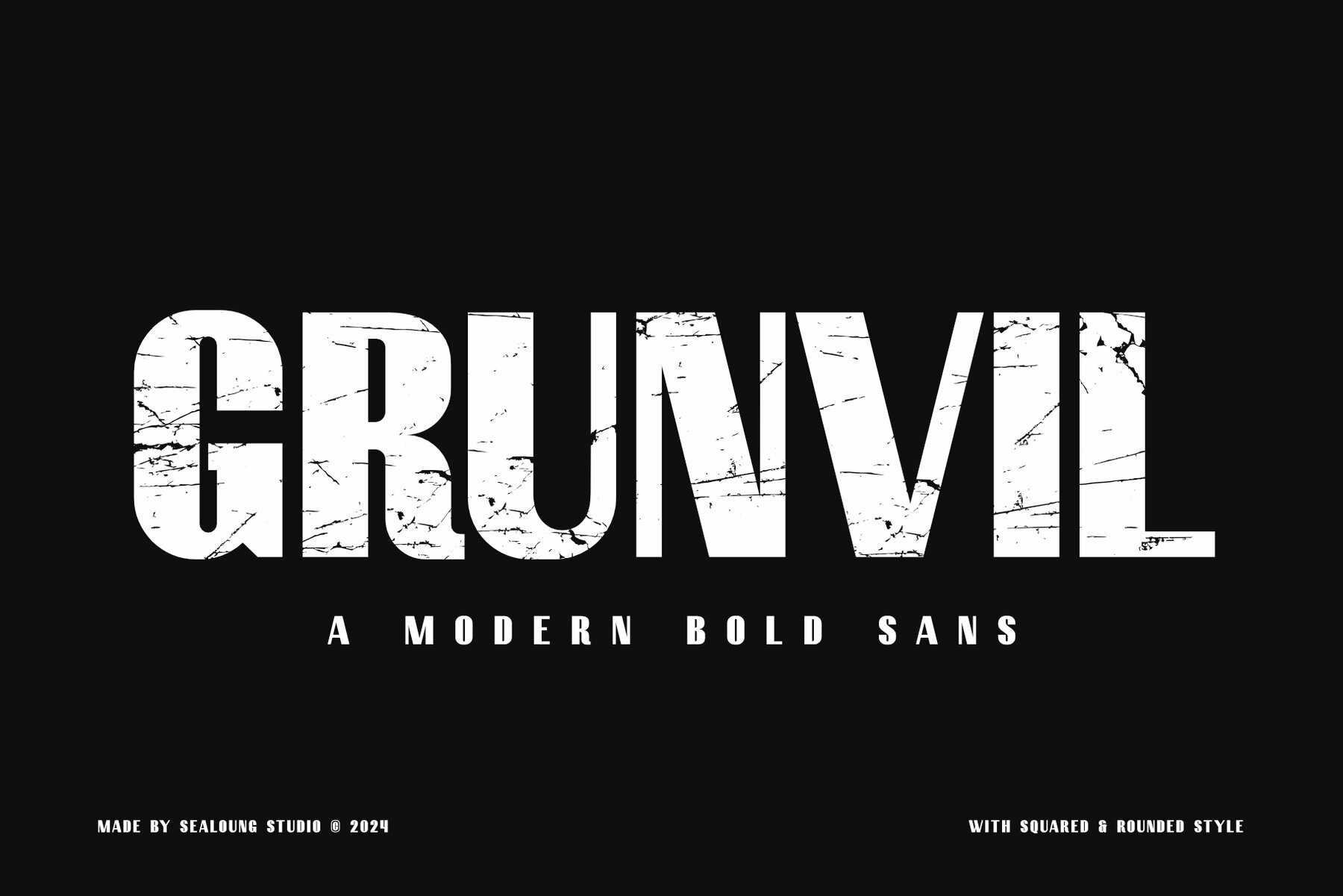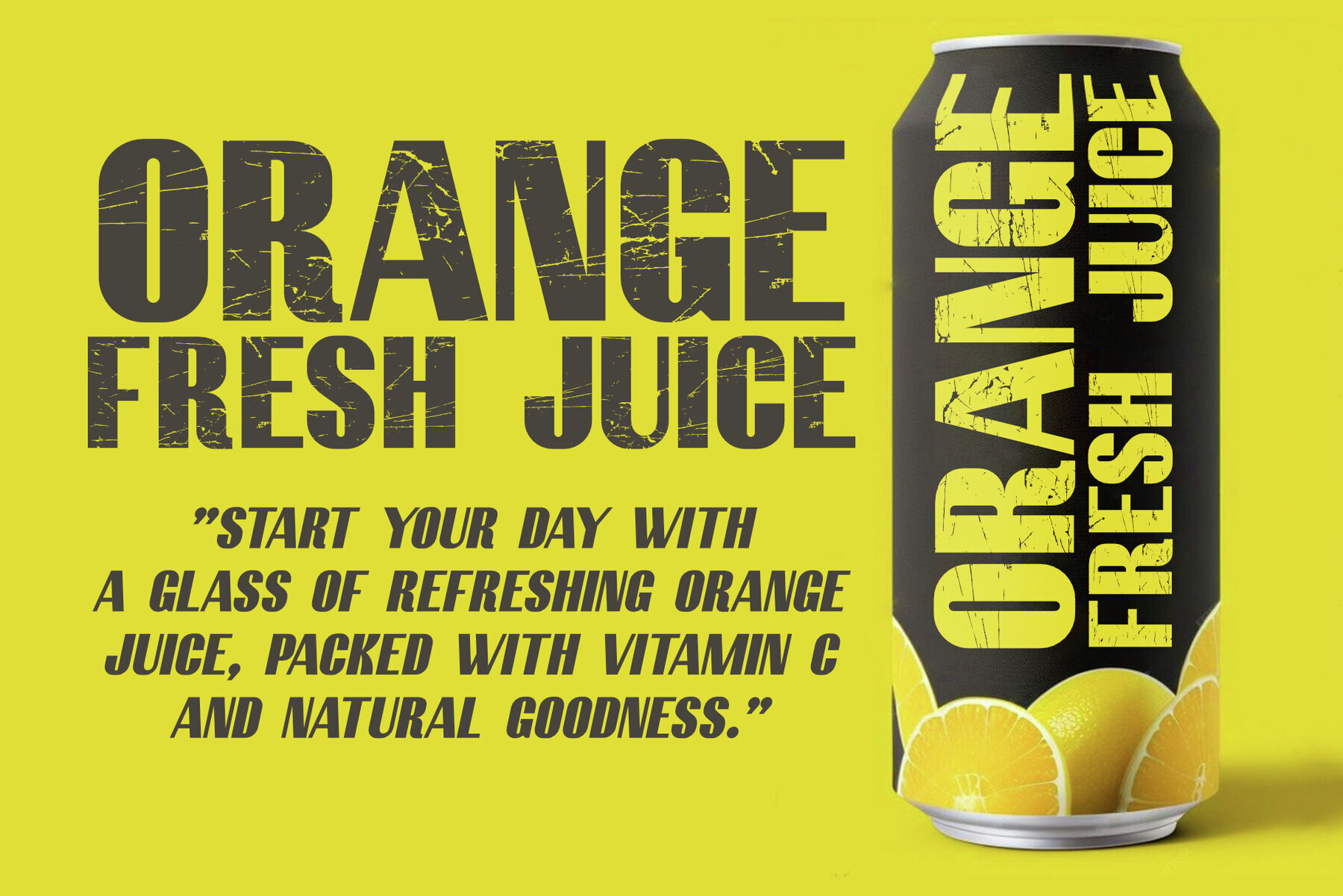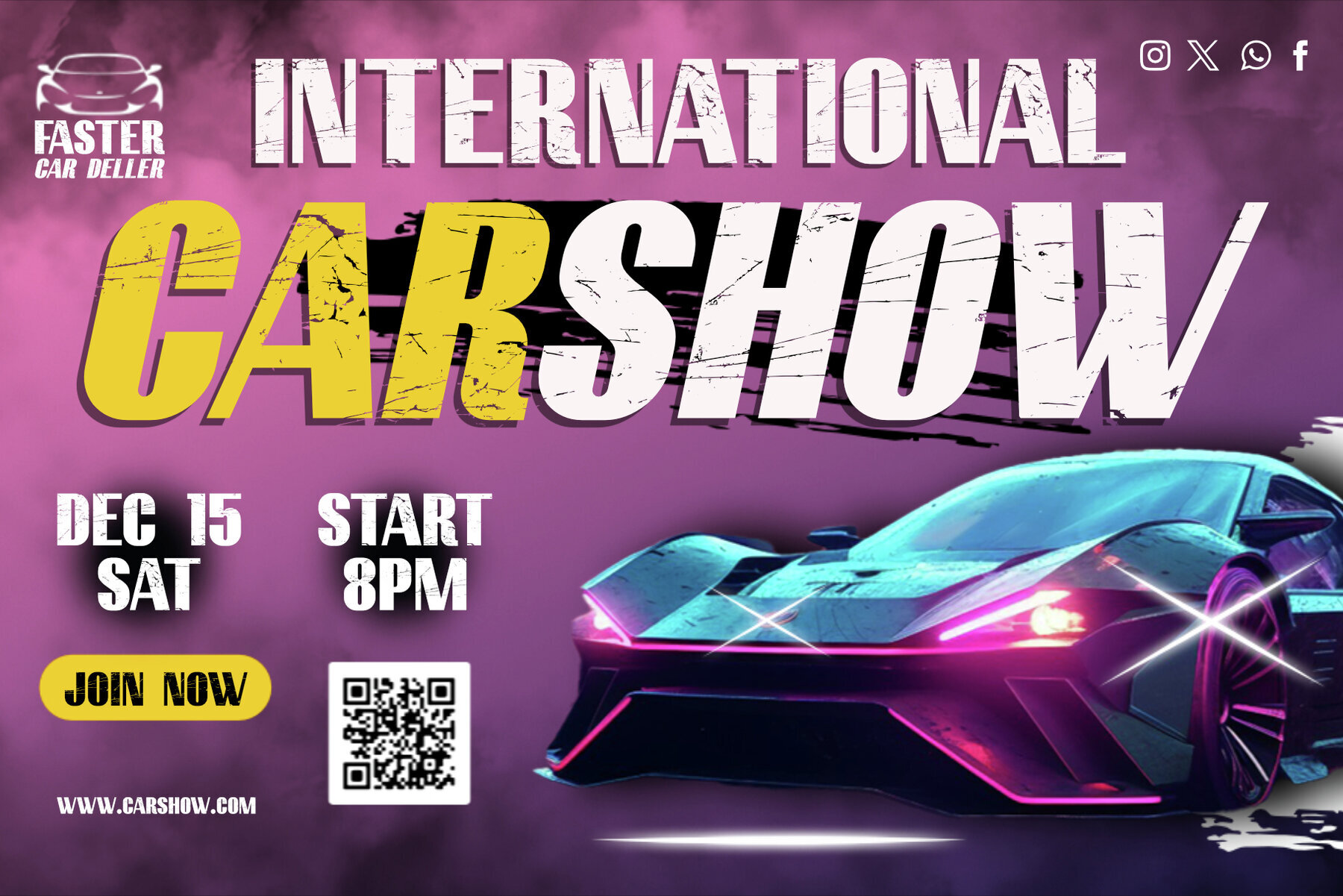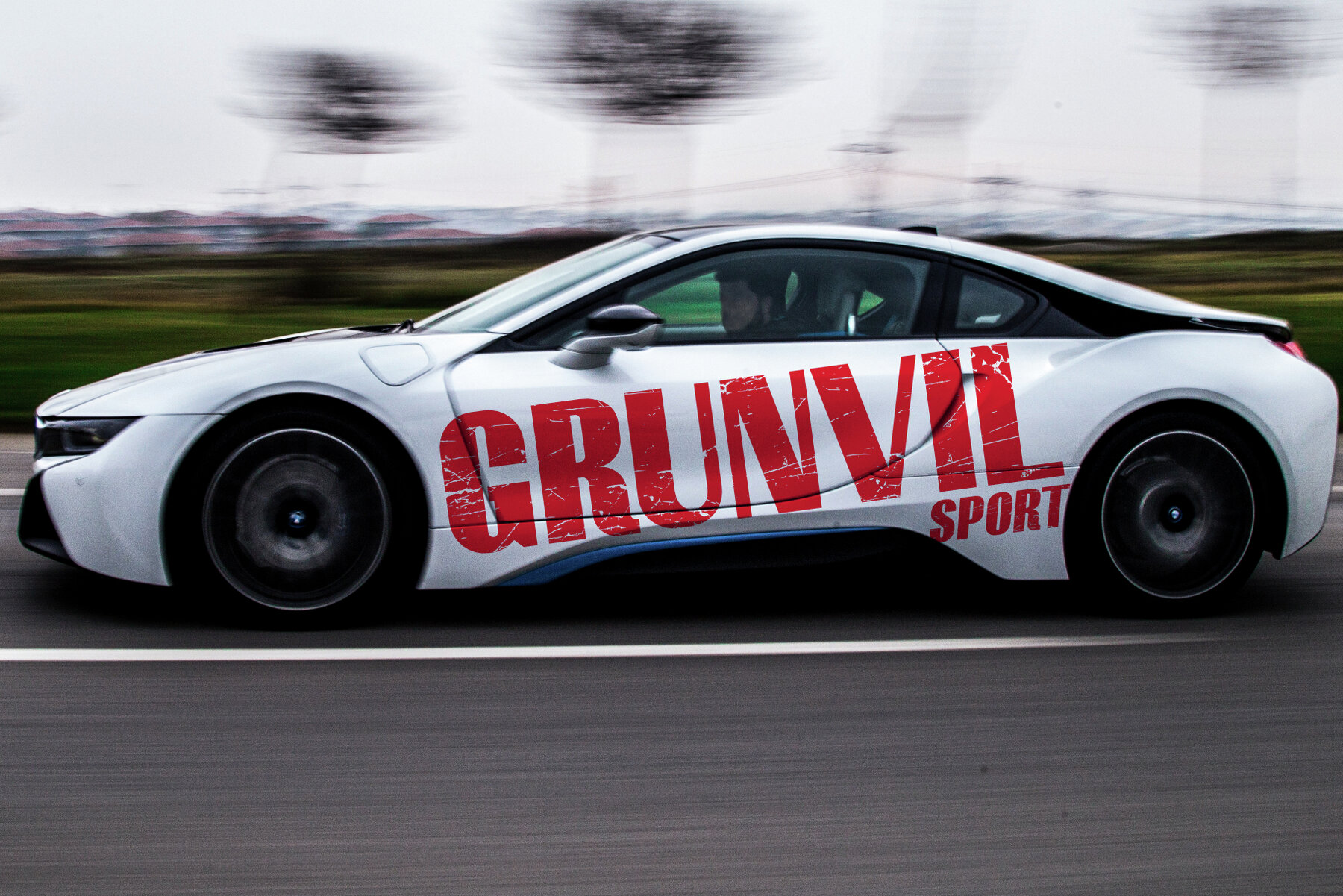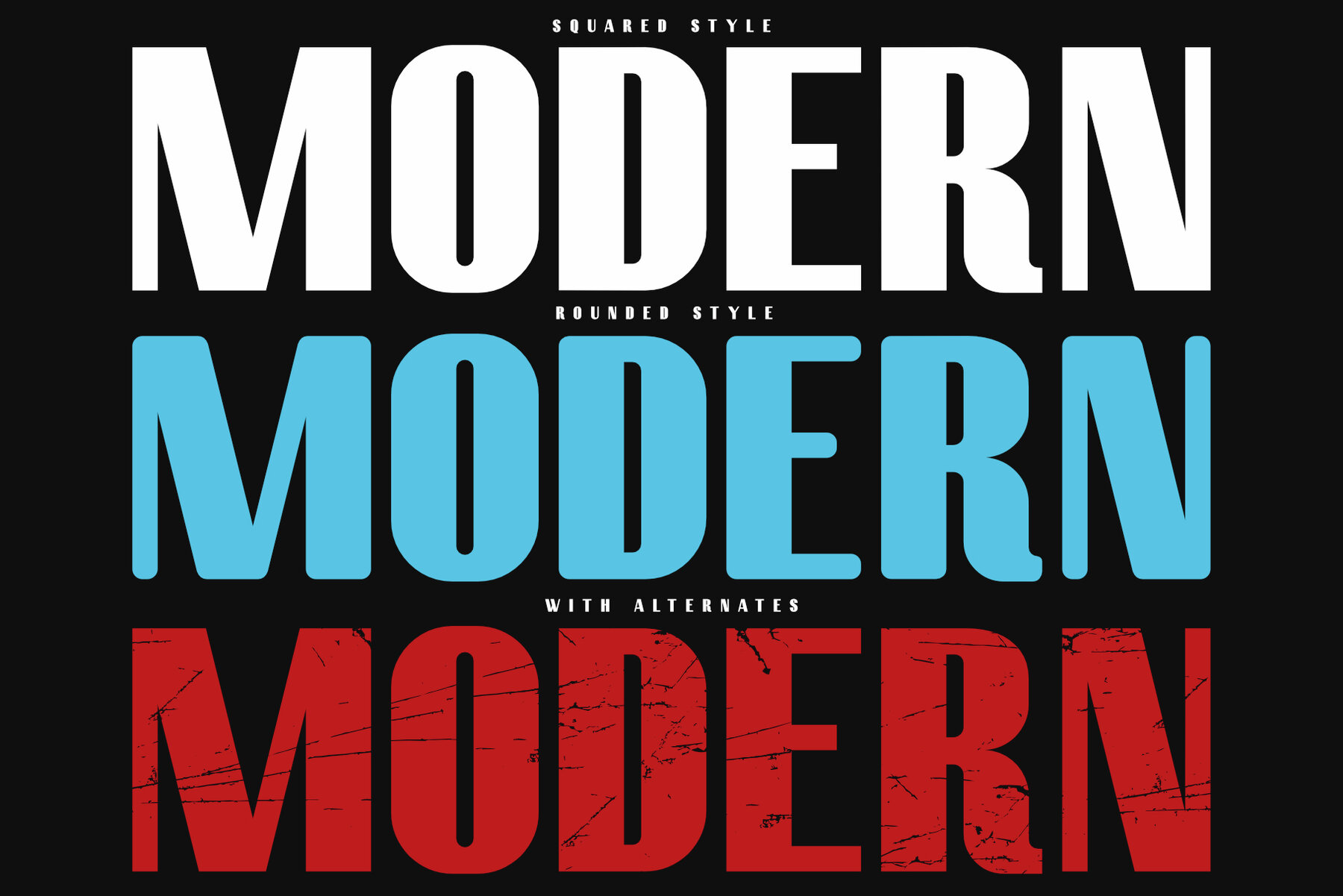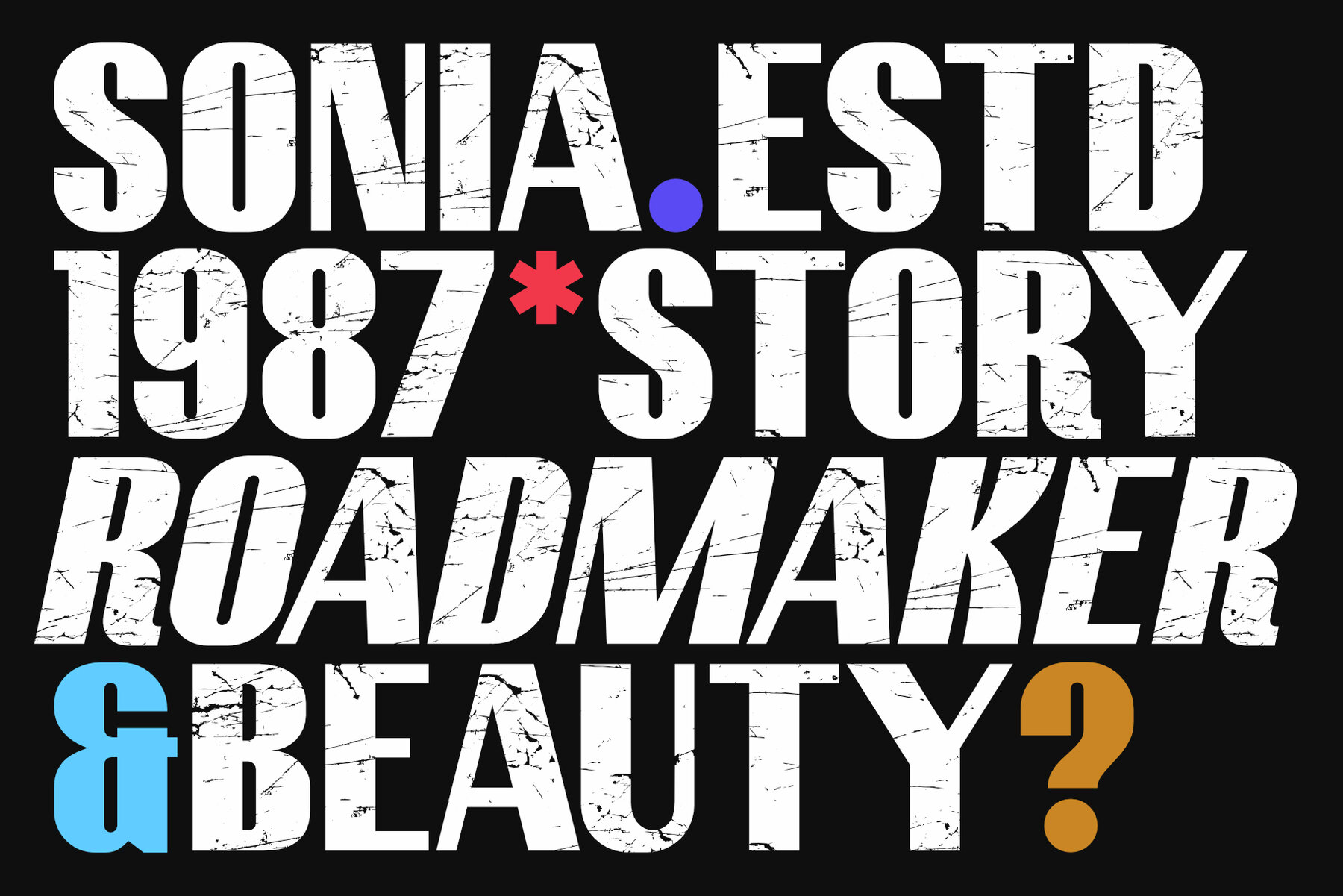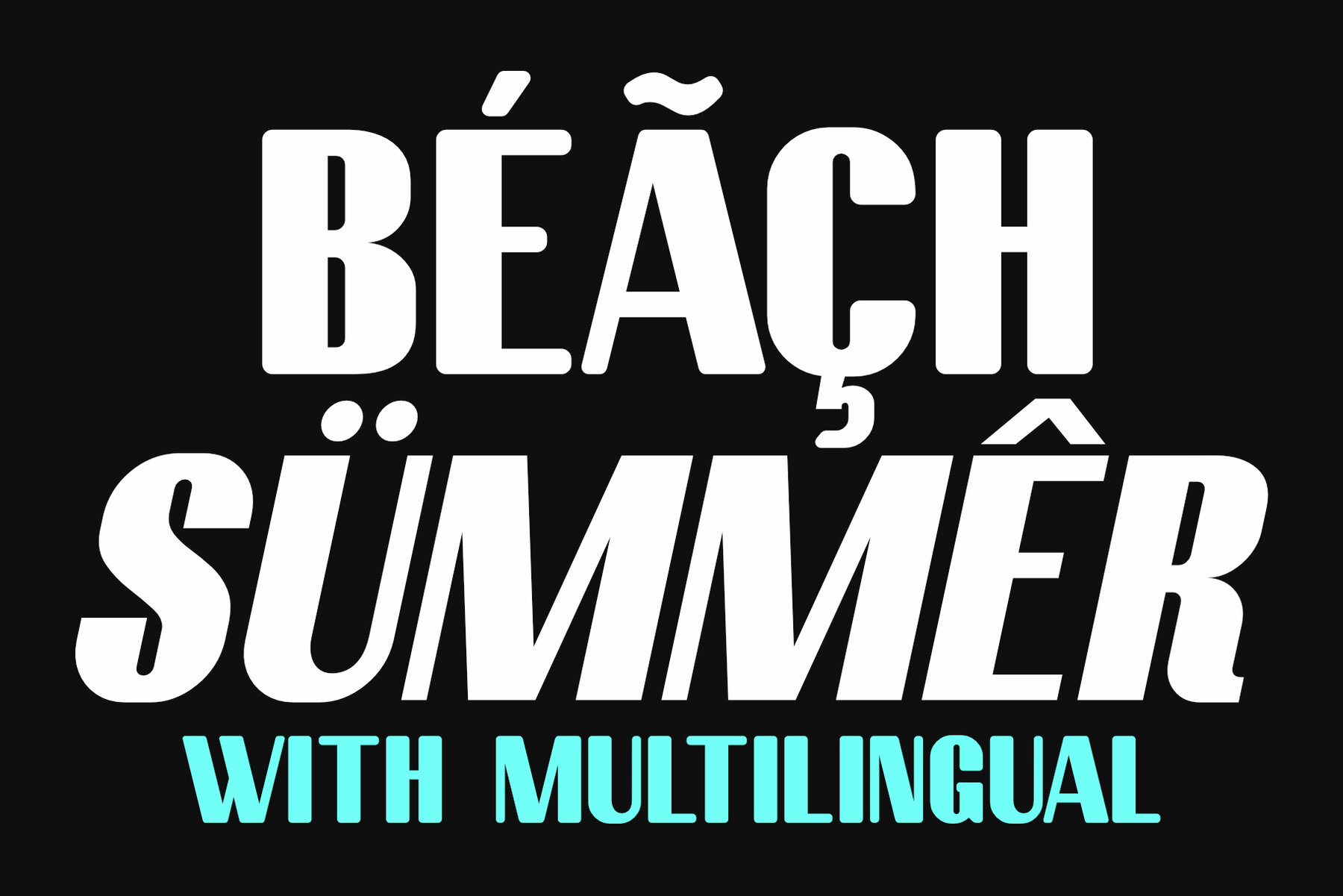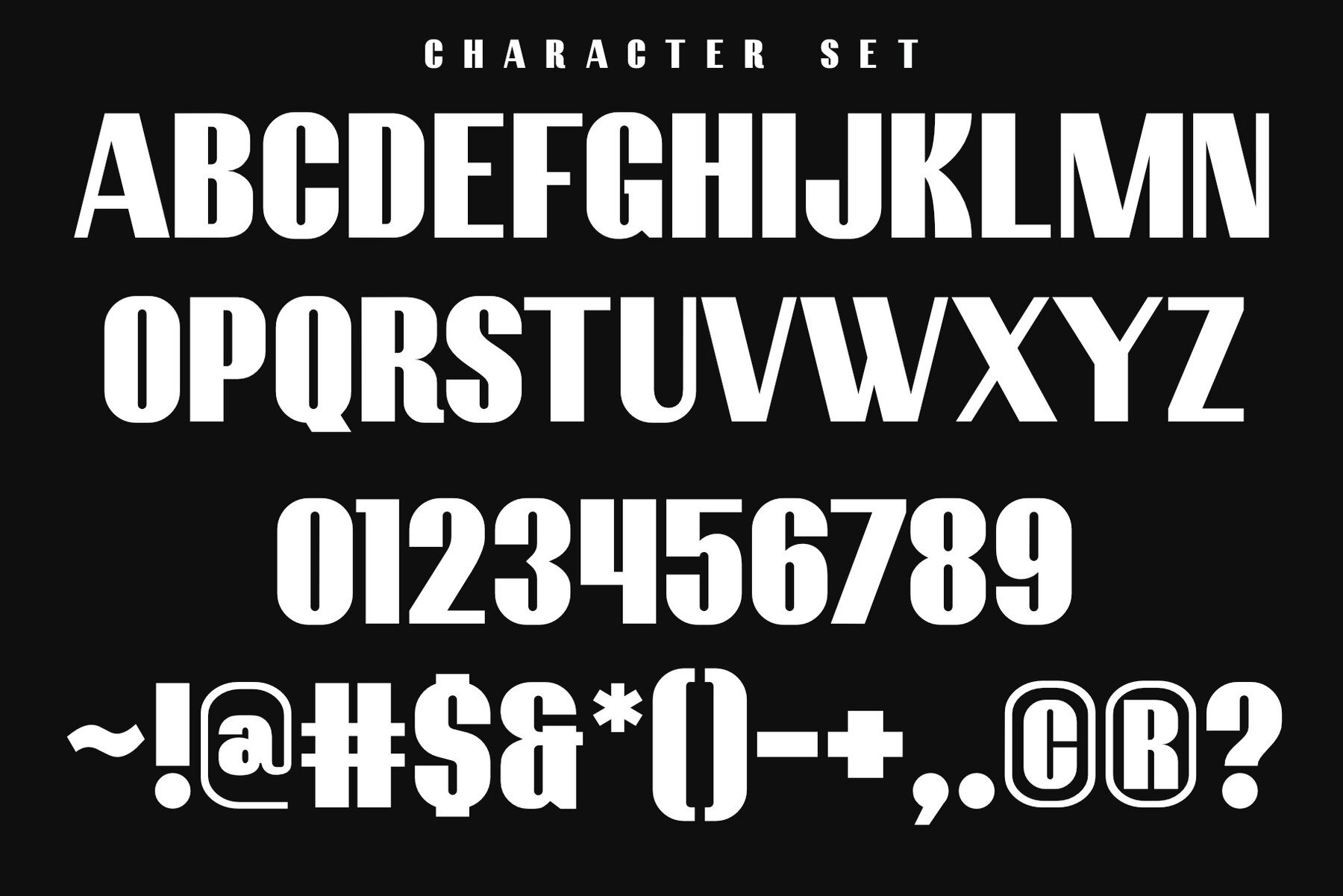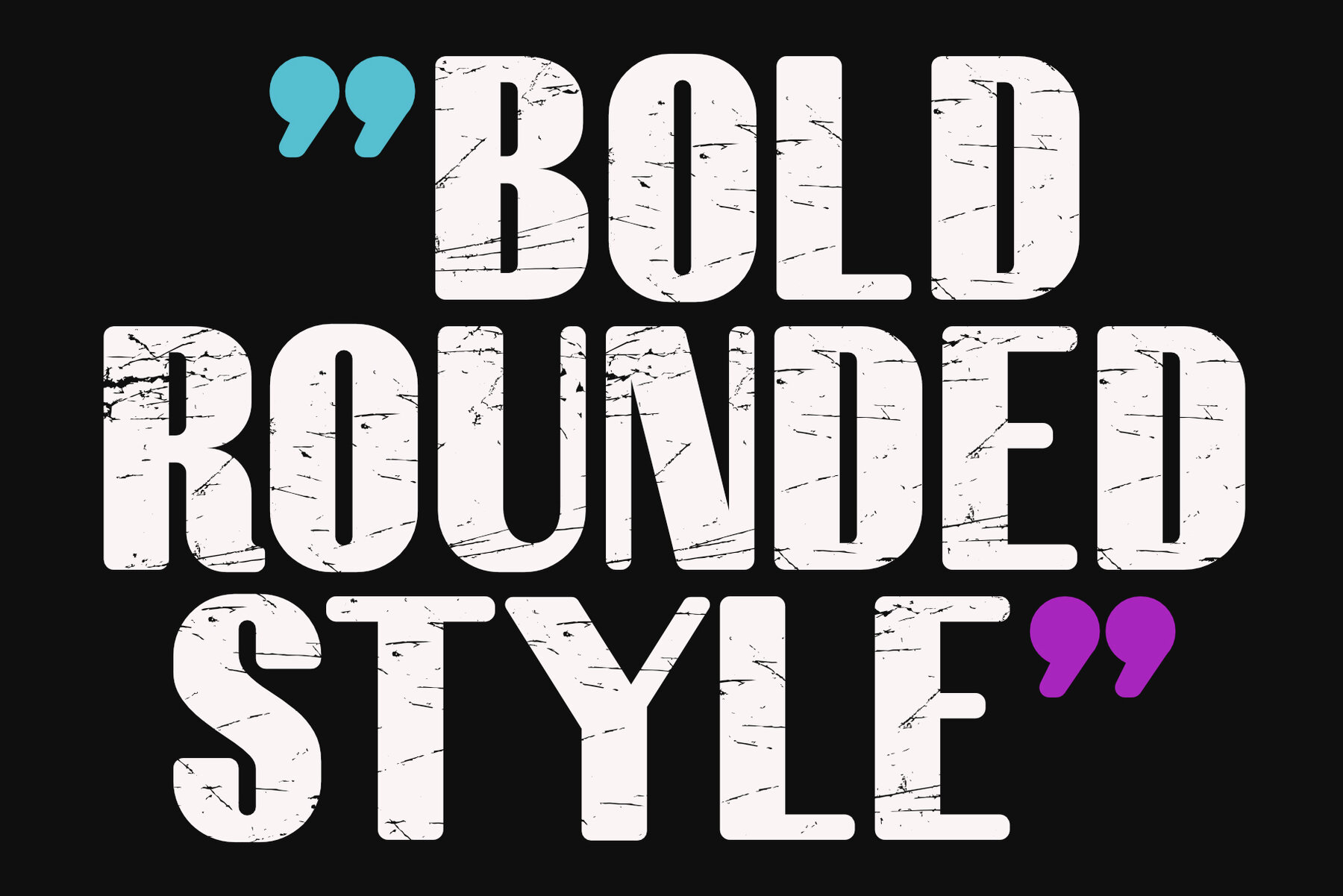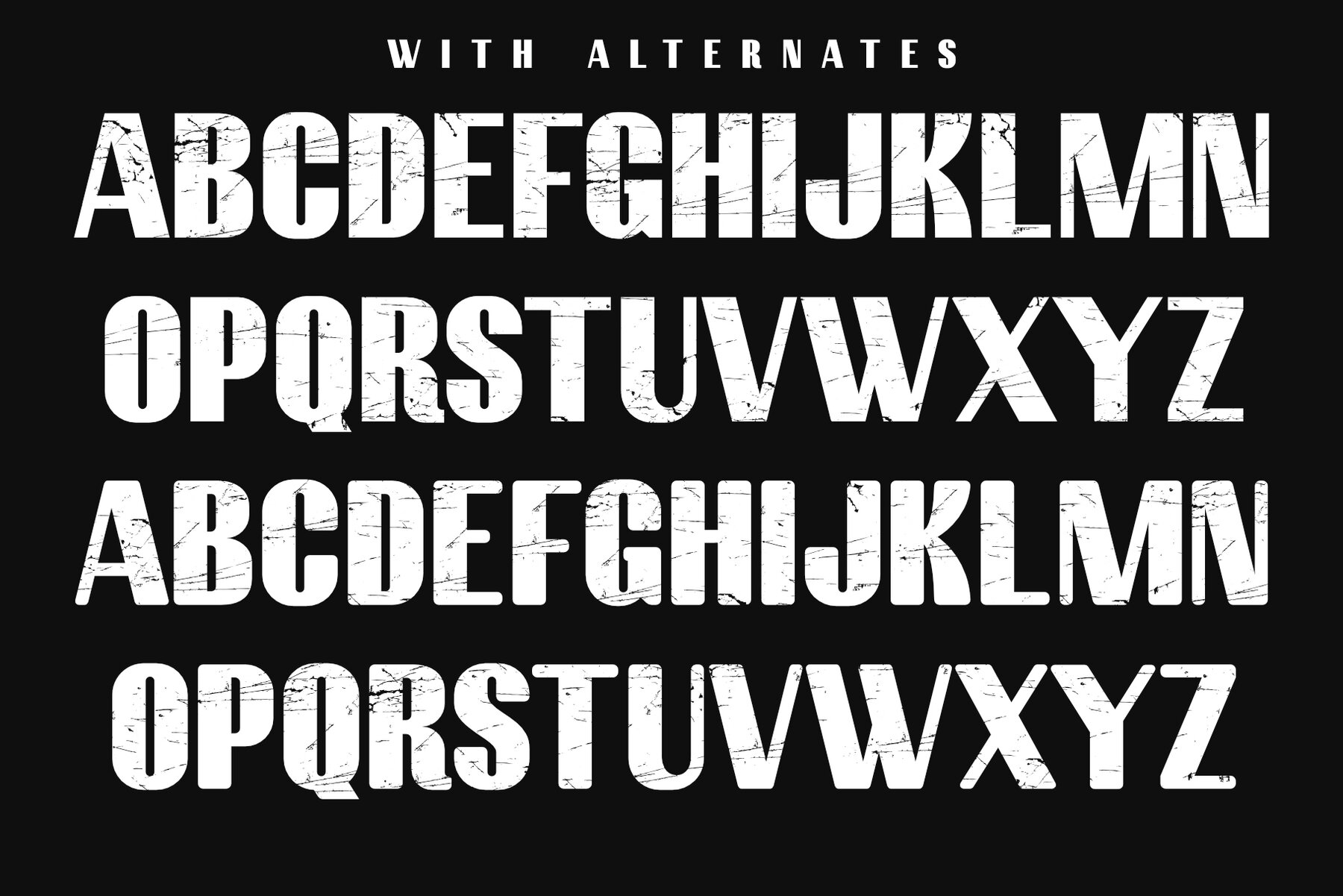
Grunvil Font
Grunvil combines modern boldness with a gritty, grunge twist, perfect for making a strong statement. This versatile typeface features clean lines and robust characters, enhanced by an alternate set that adds a rugged, distressed texture. Stand out with thick, solid letters that command attention and convey strength, while the grunge alternate style provides a rough, textured finish for a raw, urban look. Despite its boldness, Grunvil maintains clarity and readability, ensuring your message is always clear.
Ideal for streetwear brands, sport and racing, music album covers, event posters, and urban-themed designs, Grunvil adapts to a variety of design needs. Whether you're creating posters, headlines, or modern logos, this font ensures your text is not just read but felt. Unleash the power of Grunvil to bring a bold, edgy vibe to your next project.